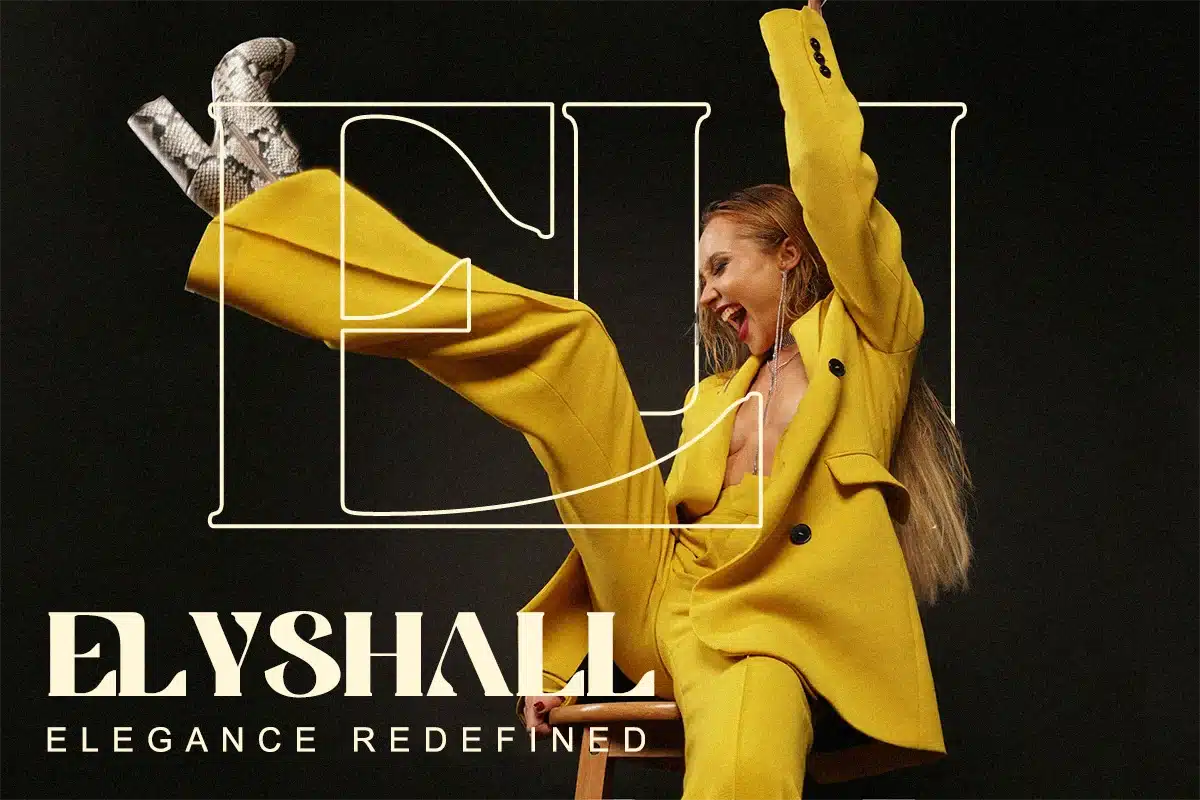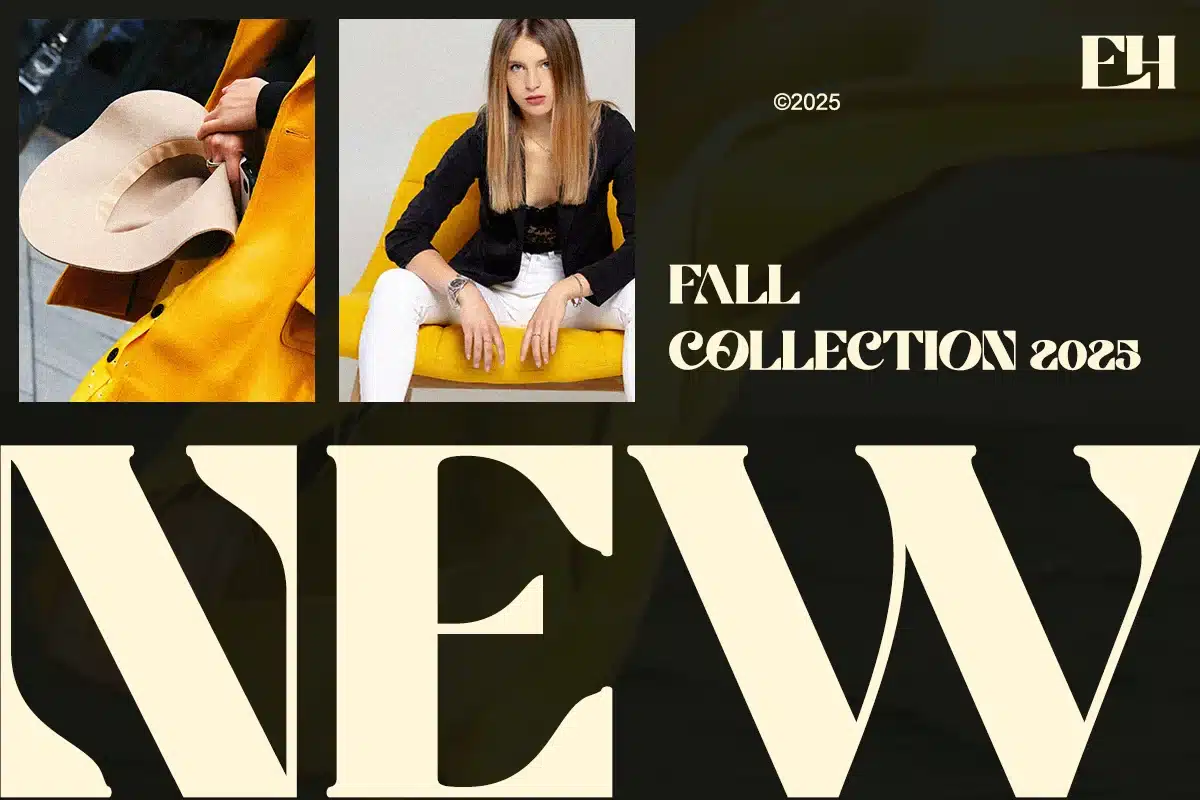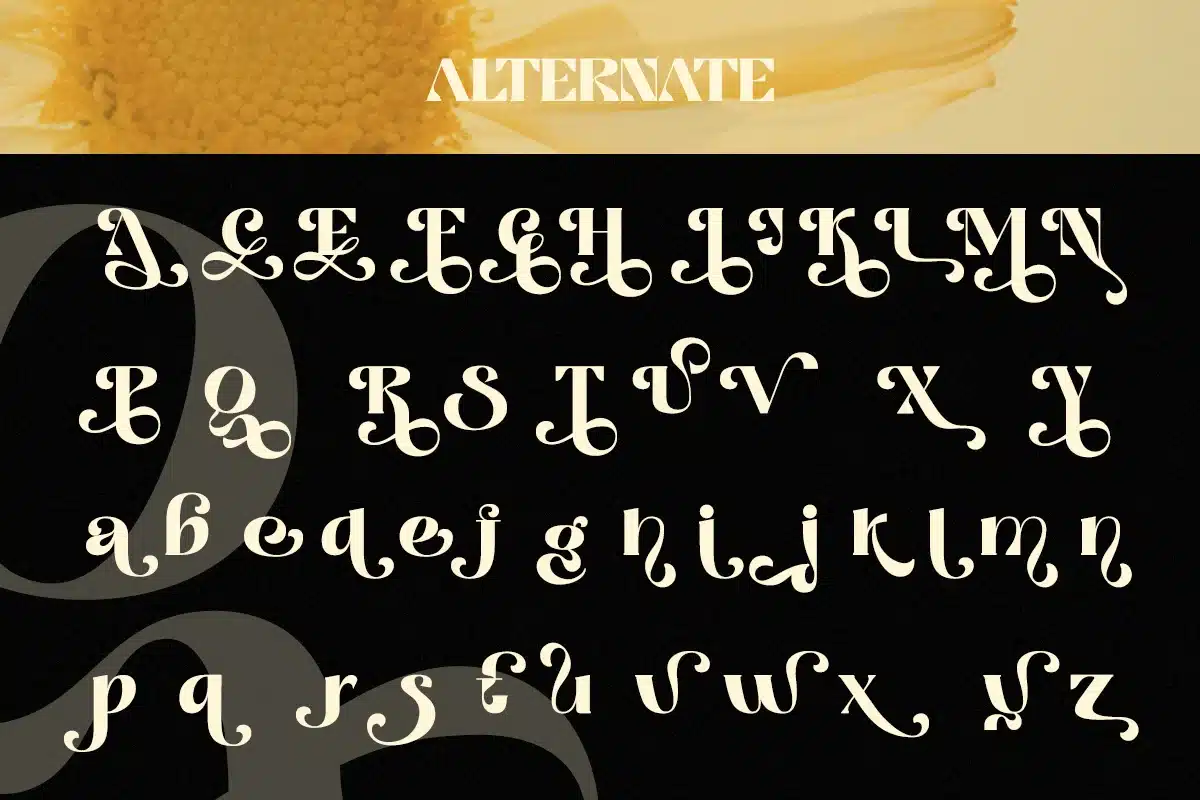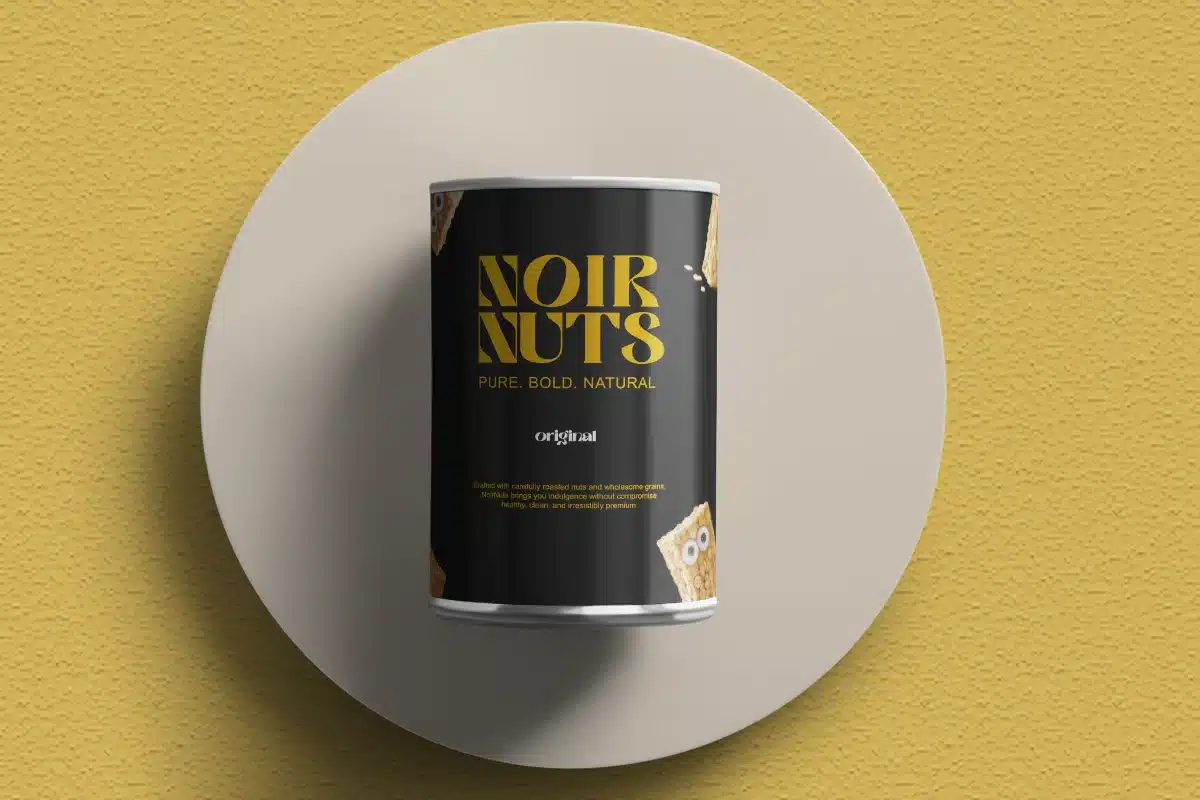
Filoptus – Modern Elegant Creative Branding Font
Filoptus is a modern elegant serif font with bold curves, expressive swashes, and refined character details.
Designed for standout branding, editorial headlines, and luxury packaging, Filoptus blends dramatic shapes with a clean, contemporary feeling.
Crafted for designers who want a unique, eye-catching serif that elevates premium visual identity.
Font Features
- Regular & Italic
- Uppercase & lowercase
- Alternates + ligatures
- High-contrast luxury serif
Luxury branding, editorial layouts, boutique logos, magazine covers, packaging design, wedding stationery, fashion content, and high-end advertising.